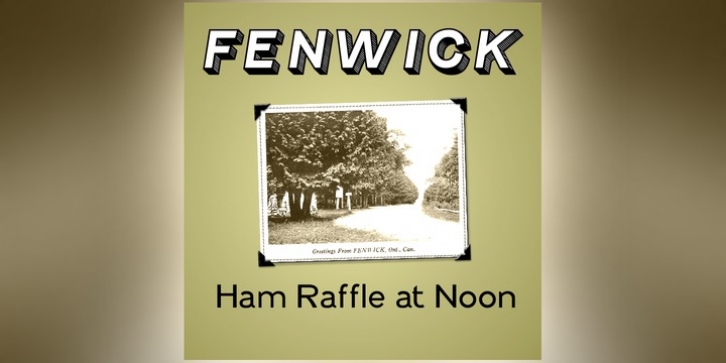
Fenwick downloadDesigner: Ray Larabie
Publisher: Typodermic
Fenwick is a lineal, metal type with unusual proportions. The almost sinuous curves of the numerals revive their inherent Arabian roots and the italic’s line thickness was amended by eye so as not appear too mechanical.